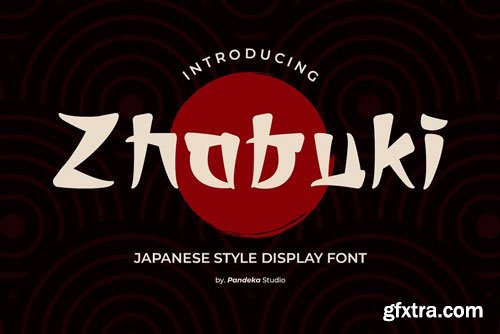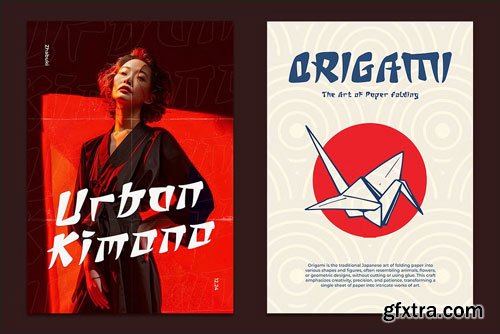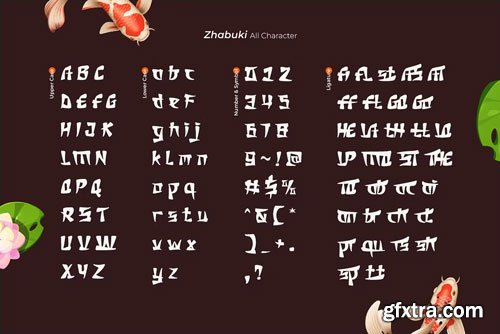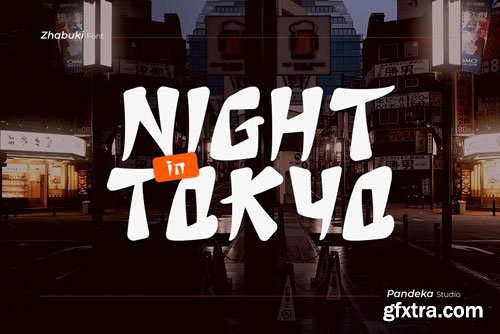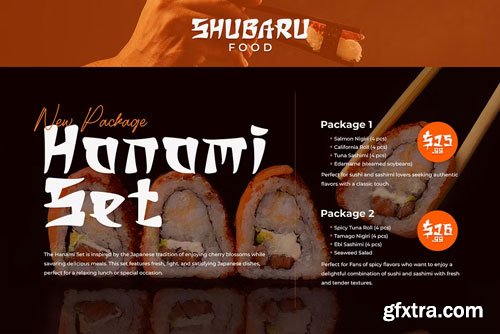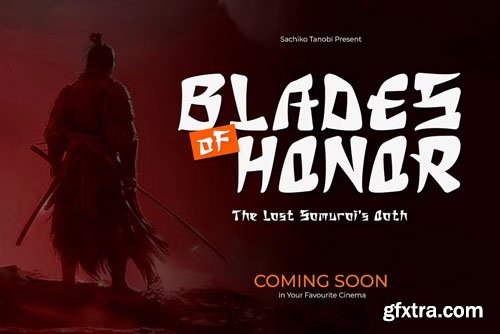
Zhabuki - Japanese and Korean Font
Introducing Zhabuki, a stunning display font inspired by the beauty of Japanese and Korean aesthetics. Combining traditional East Asian charm with a modern touch, Zhabuki is the perfect choice for bringing authentic Asian vibes into your designs.